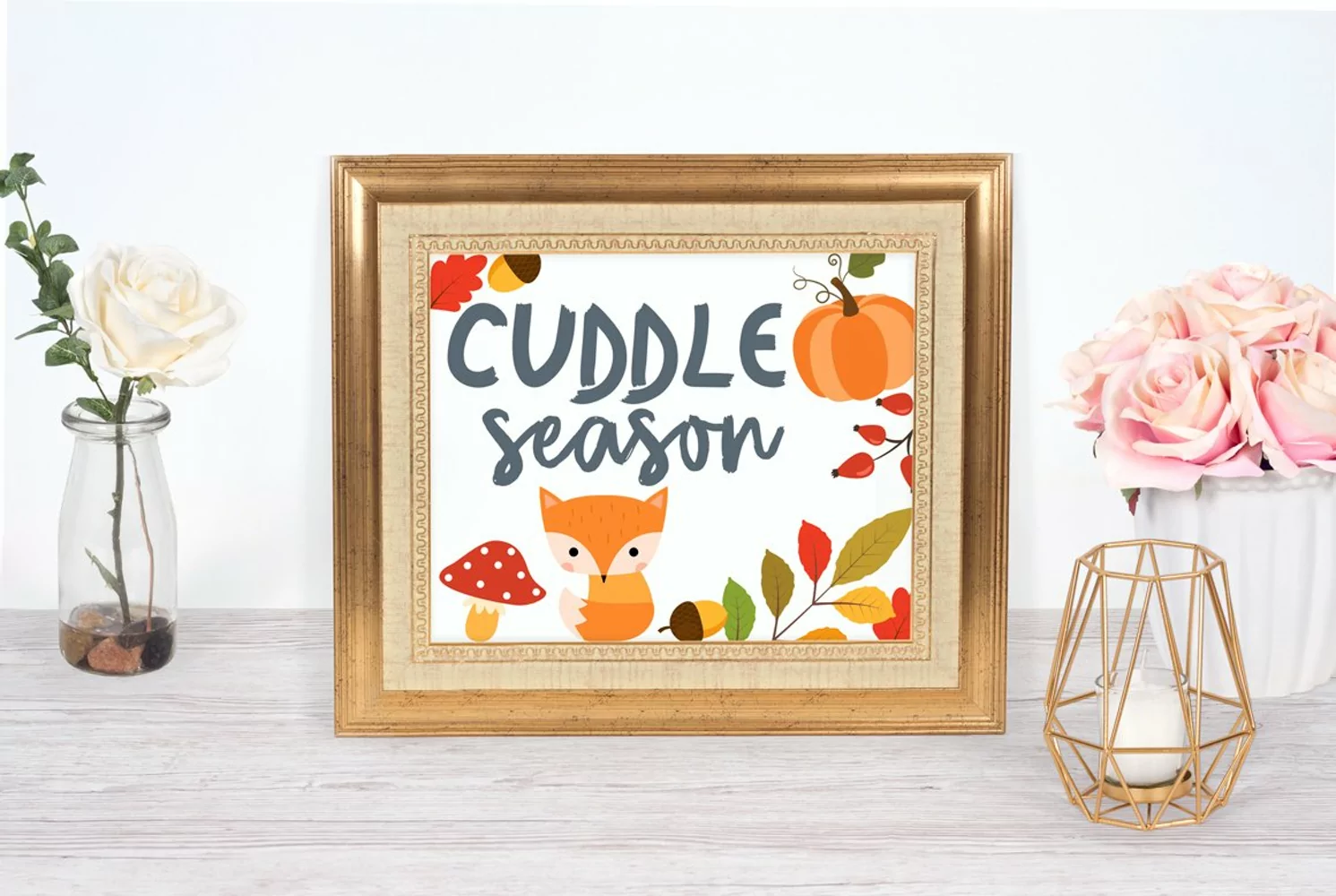
Horror Story Font - A Spooky Brush Font
This decorative brush font was designed
with Halloween in mind, but it can be used in many other types of
projects. It looks great for both header designs and in lots of text.
The end of each letter gives you a “broken” feel from the dry brush.